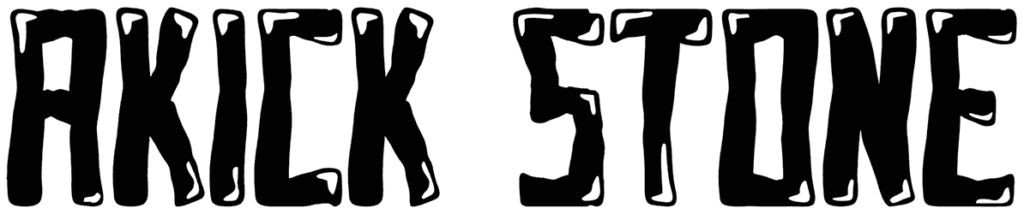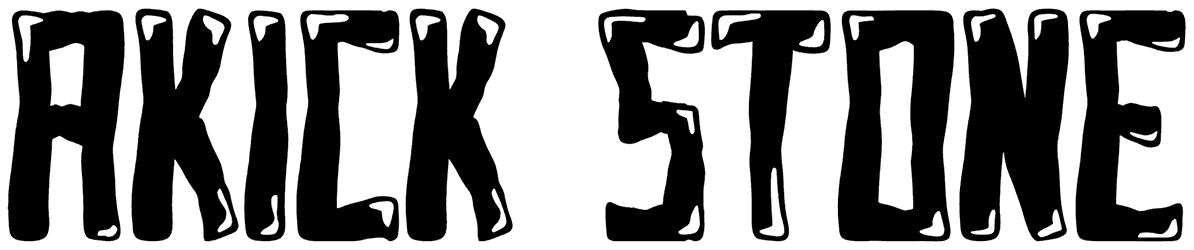
Akick Stone Font
If you want to augment the fun and energy of your design, surely a cartoon font can be very useful in that way. As a stone font, Akick Stone can make your writing different with its irregular and wavy style.
Even without an option for lowercase and most of the numbers, Akick Stone will be a cute face on your next designs, such as game screens, posters, wordmarks, or many others the same.